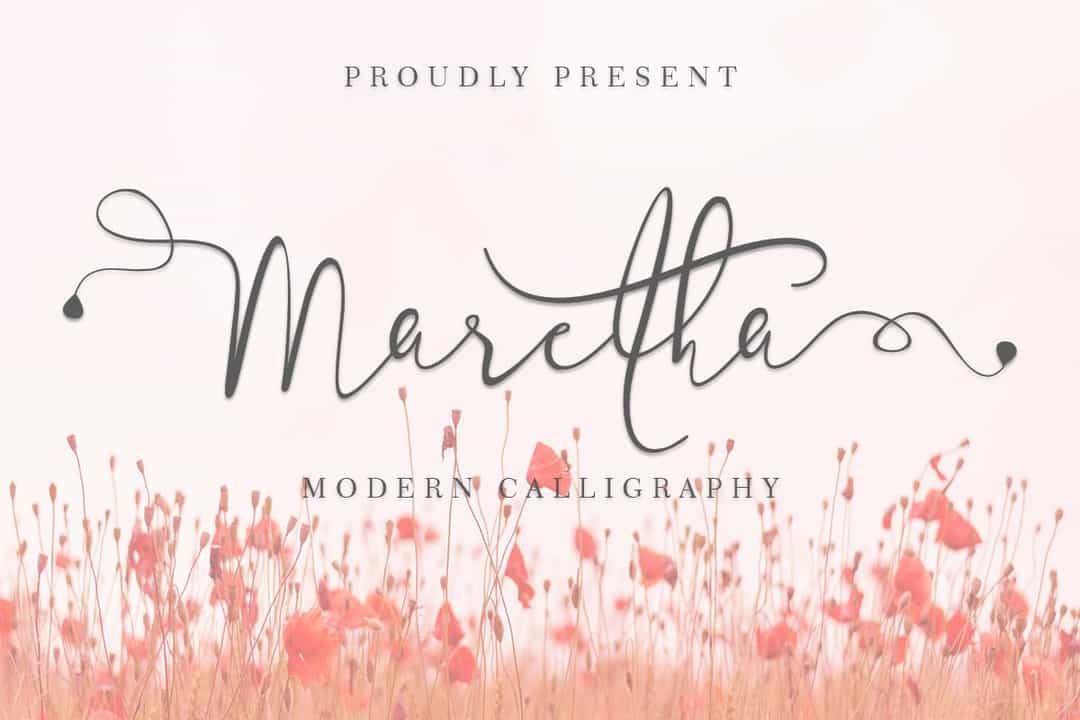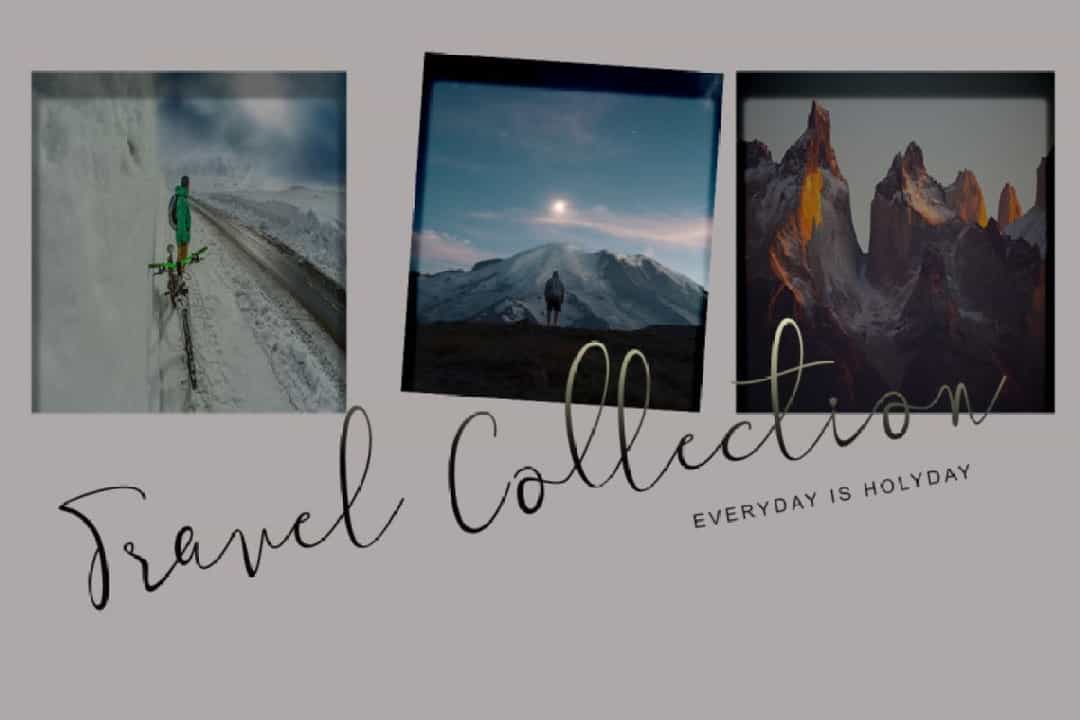
Maretha is an elegant calligraphy font that will give the touch of elegance, beauty and professionalism. This is a great set to use to give that professional touch to your work – wedding photos, bridal invite cards, company logos, branding, etc.